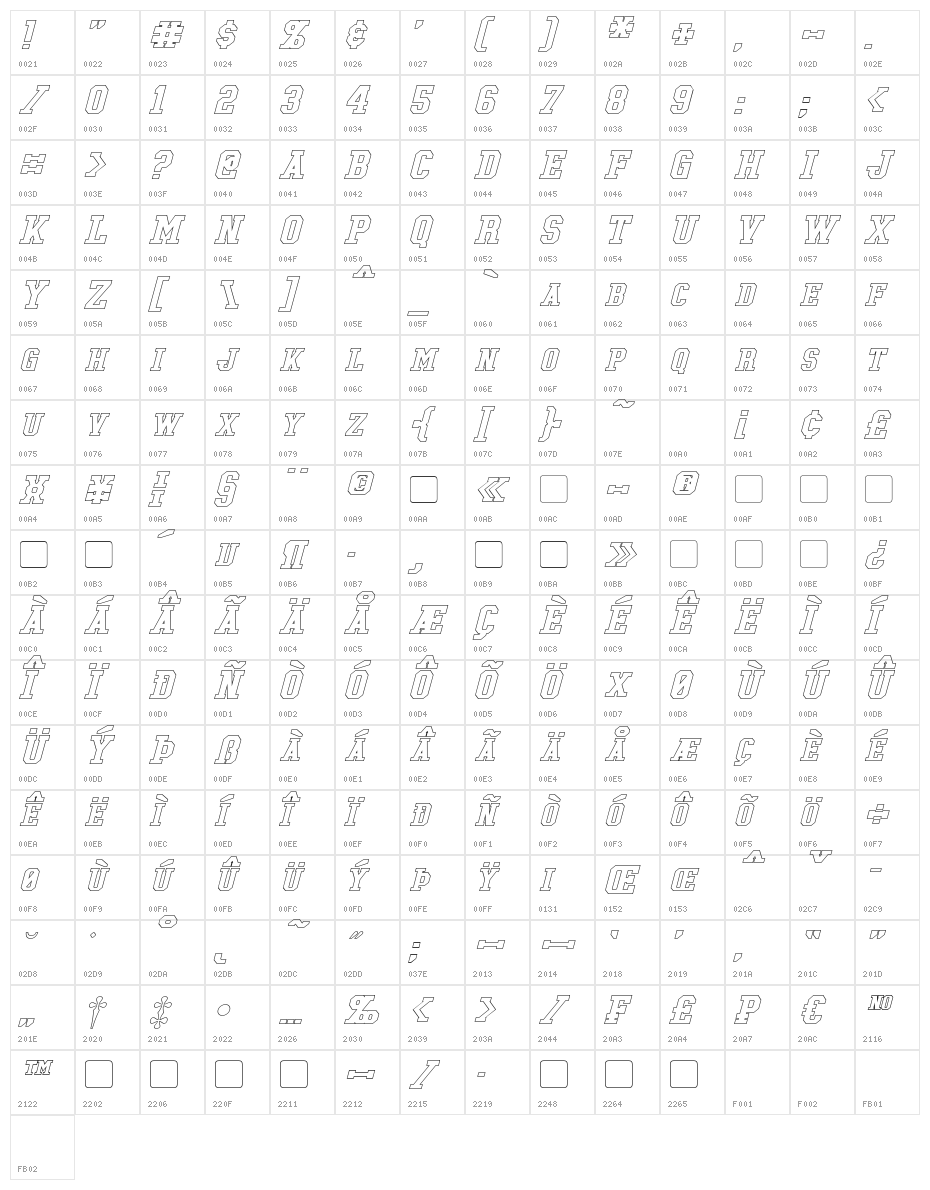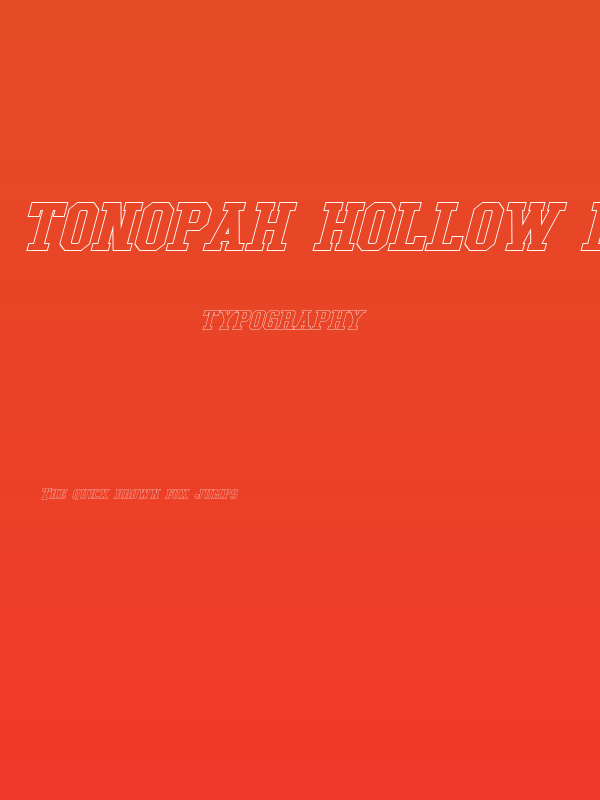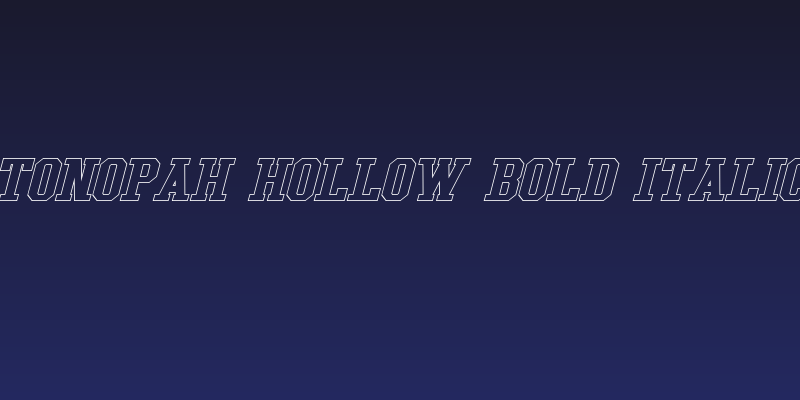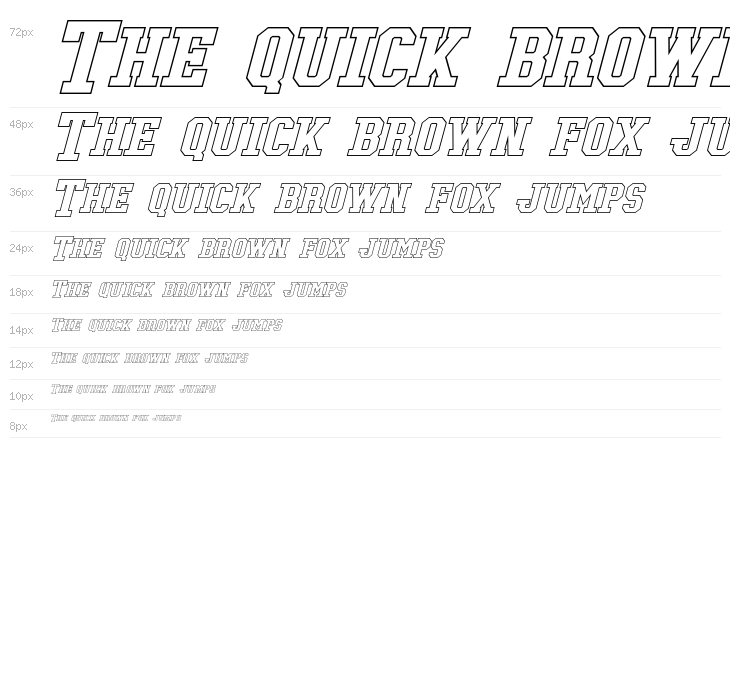
Tonopah Hollow Bold Italic Font
Tonopah Hollow Bold Italic Description
This font features a bold and italicized style with a hollow interior, giving it a distinctive and eye-catching appearance. The uppercase letters are designed with sharp angles and a strong geometric influence, creating a sense of movement and energy. The numbers and special characters maintain this bold, hollow style, ensuring consistency across all elements. The italic slant adds a dynamic feel, making it suitable for projects that require a modern and impactful look. The font's unique hollow design allows for creative use of background colors or textures to show through, enhancing its visual appeal.
Proposed ProjectsIdeal for posters, logos, sports branding, and any design requiring a bold statement.